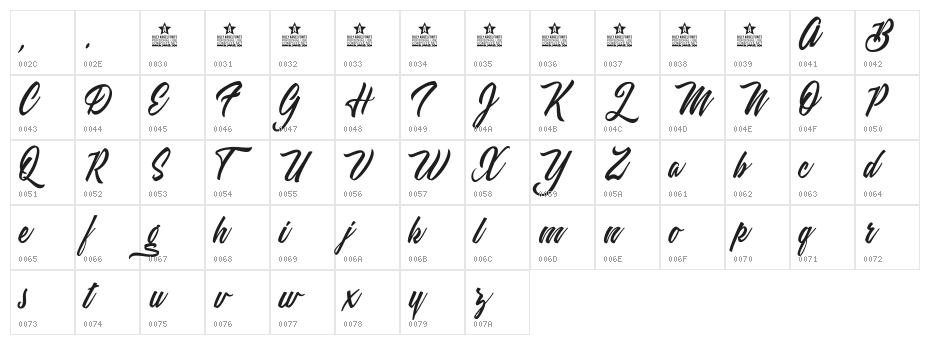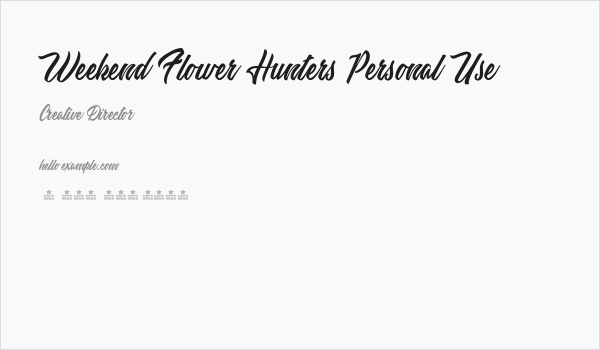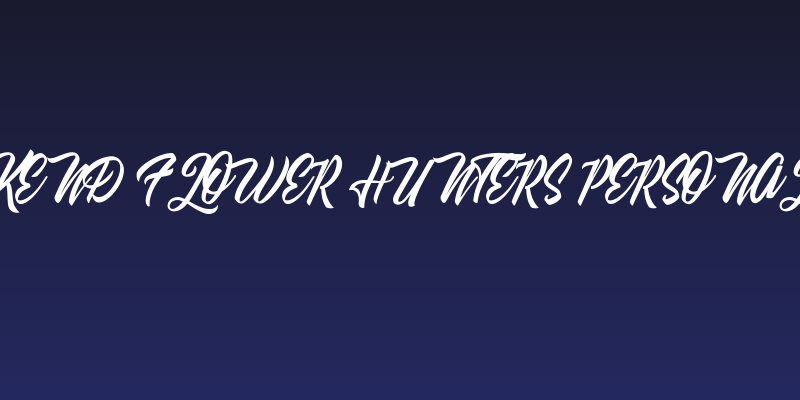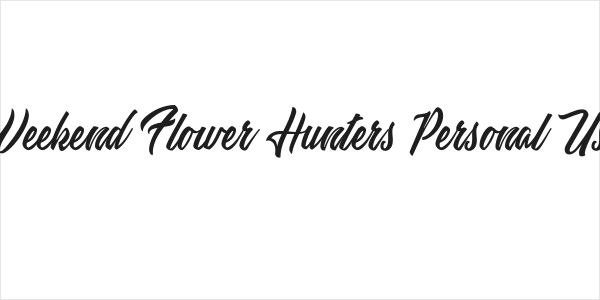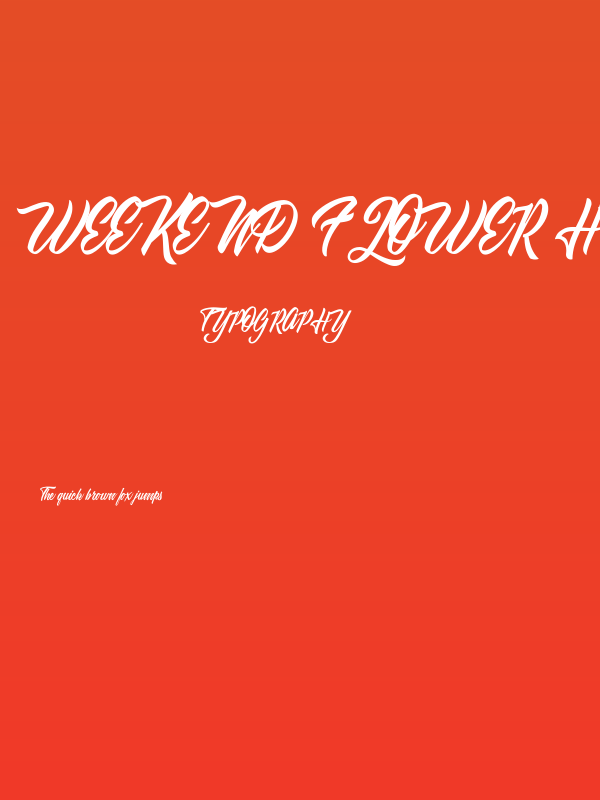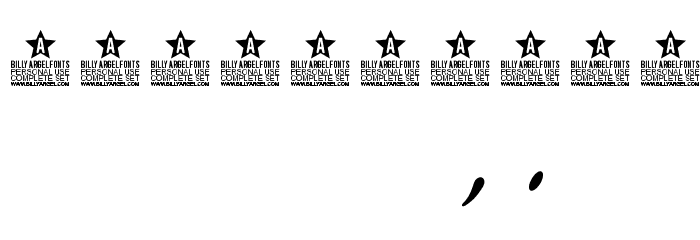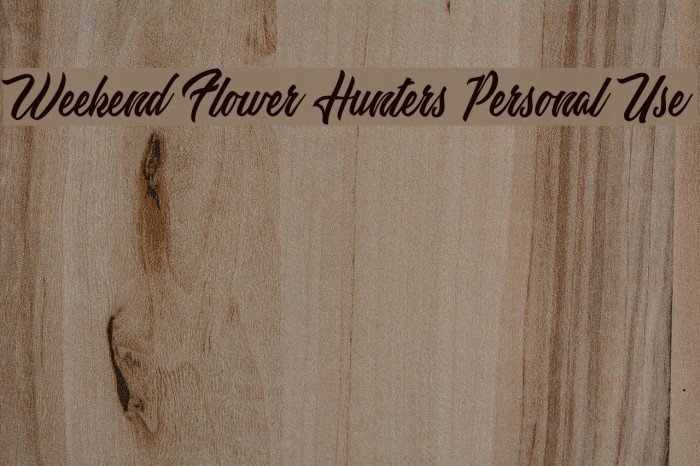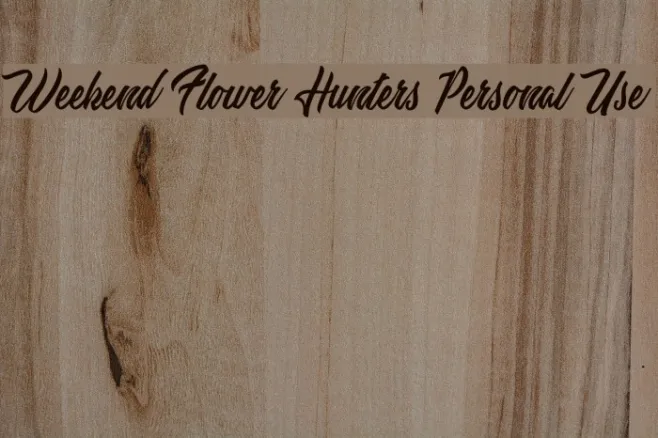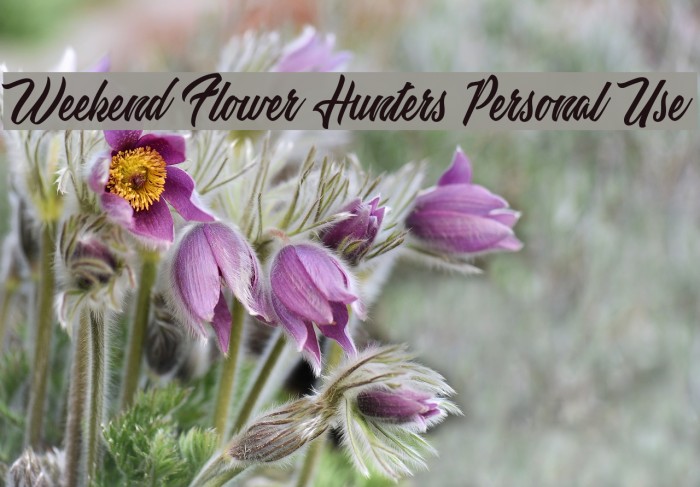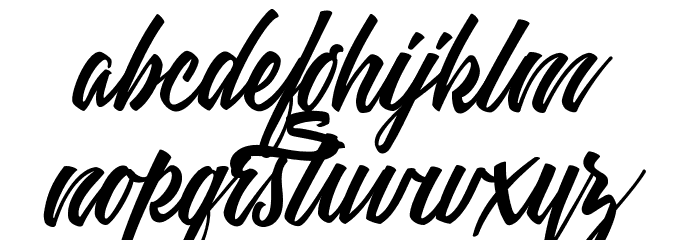
Weekend Flower Hunters Personal Use Font
Weekend Flower Hunters Personal Use Description
This font features a bold and expressive script style with a dynamic flow that mimics natural handwriting. The letters are interconnected, creating a sense of movement and fluidity. The uppercase characters are slightly larger and more elaborate, while the lowercase letters maintain a consistent rhythm. The strokes are thick, with a medium contrast that adds to the legibility and visual impact. This font's playful yet elegant style makes it suitable for creative and artistic projects.